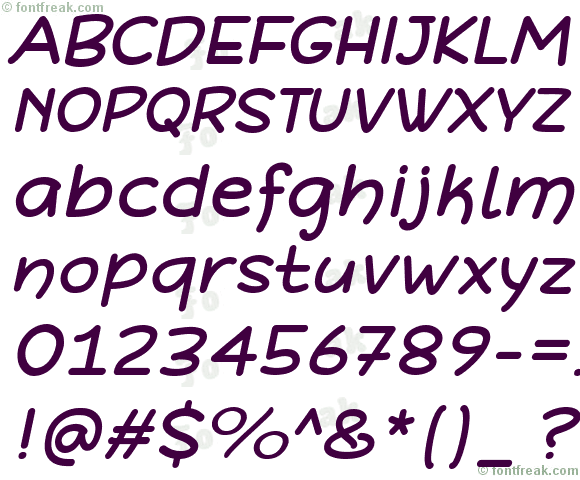
DeFonarts Italic
About DeFonarts Italic
DeFonarts Italic is a striking display font designed by Situjuh Nazara in 2014, characterized by its unique italic style that exudes creativity and flair. This font belongs to the category of decorative typefaces, making it an ideal choice for projects that require a touch of personality and charm. Its visual characteristics include a moderate stroke weight with a delightful contrast that enhances its aesthetic appeal. The flowing, slanted letters create an elegant rhythm, while the generous spacing between characters ensures readability without sacrificing style.
This font is particularly well-suited for various creative applications. It shines in wedding invitations, where its graceful curves can convey warmth and joy. Movie posters benefit from its dynamic presence, capturing attention and setting the tone for cinematic experiences. Restaurant menus can leverage DeFonarts Italic to highlight special dishes or to create an inviting atmosphere. Additionally, it works wonderfully for branding materials, such as logos and promotional graphics, allowing small business owners to stand out from the competition.
Targeted at graphic designers, content creators, and small business owners, DeFonarts Italic offers versatility and uniqueness that can elevate any design project. Its playful yet sophisticated appearance makes it a favorite among those looking to infuse their work with character.
What truly sets the DeFonarts Italic font apart is its ability to blend artistic flair with functional design. The balance of style and readability ensures that it can be used effectively in a variety of contexts, making it a valuable addition to any designer's toolkit. With its free license, the DeFonarts Italic font free download provides an accessible option for creatives seeking to enhance their projects with a distinctive touch.